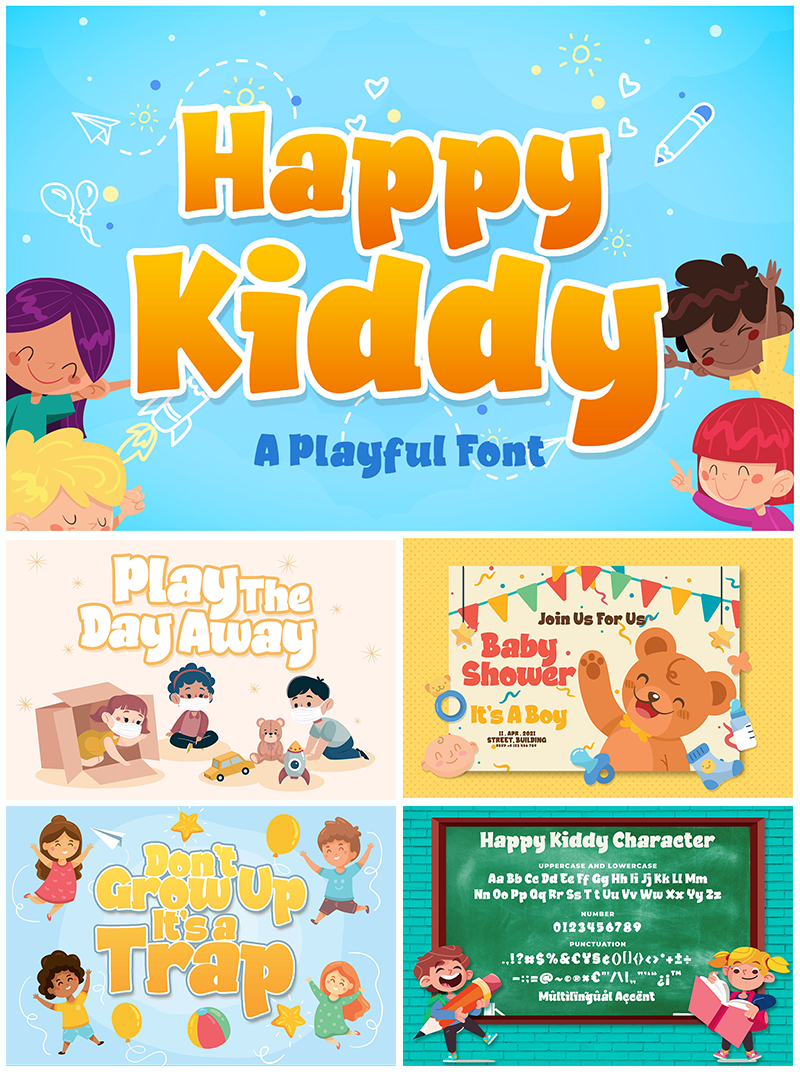
Happy Kiddy
Discover the Joy of Happy Kiddy!
Are you seeking a font that radiates warmth, friendliness, and youthful energy? Look no further than Happy Kiddy, a vibrant display font designed to bring a smile to faces. This charming typeface is perfect for projects that require a playful, authentic touch.
Whether you're creating materials for children's activities, designing educational resources, or crafting marketing campaigns that speak to families, Happy Kiddy's chunky letters and bright colors are sure to capture attention. Its whimsical charm makes it an excellent choice for adding a dash of fun to your designs.
Imagine the excitement of using a font that can convey the thrill of learning, the joy of playtime, or the magic of imagination. Happy Kiddy's unique style is perfect for capturing the essence of childhood wonder and curiosity. With its bold personality and infectious enthusiasm, this font will instantly elevate your design game.
Whether you're seeking a font to make your brand stand out, create engaging educational materials, or simply add a splash of fun to your designs, Happy Kiddy is the perfect companion for your creative endeavors. Give it a try and watch as your projects come alive with its infectious energy!